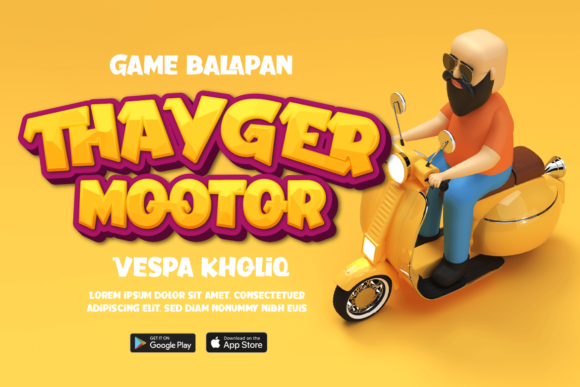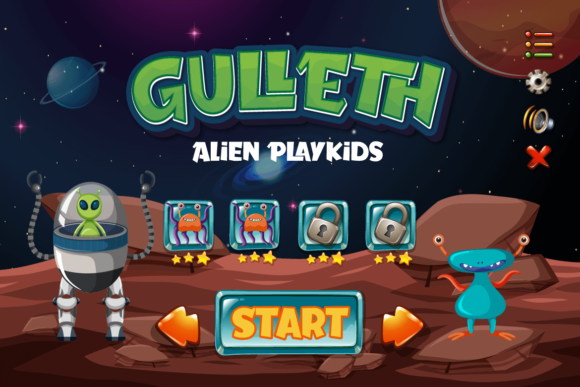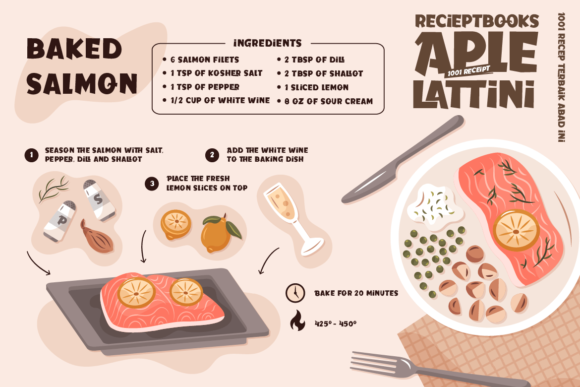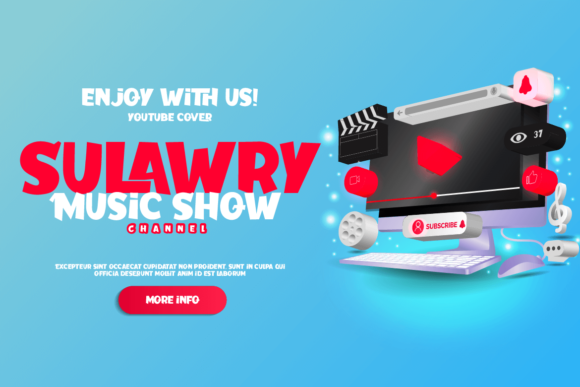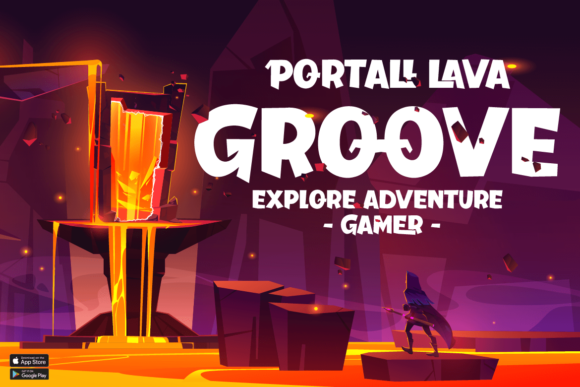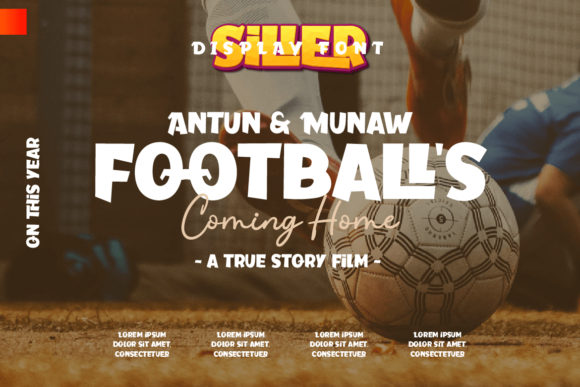
Introduction to Siller Font
Siller is a cool, playful and thick lettered display font.
Whether you are using it for cartoon-related designs, children games, quotes, titles, brand names, book covers, posters, or just any creation that requires a touch of joy, this font is a great choice .